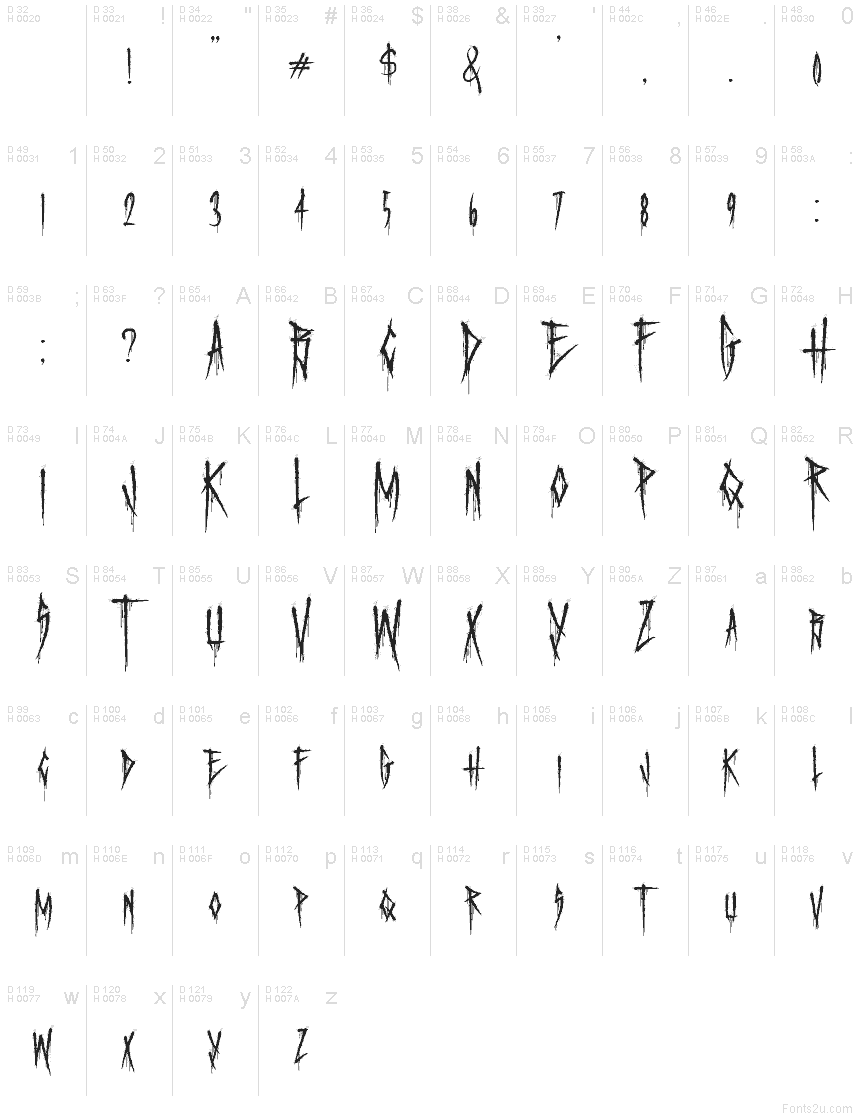
Terror From Midnight
Terror From Midnight font by Lettersiro Studio is a free scary display font. Built for shock value, its jagged, splintered strokes jab downward like dripping claws, with a gritty, splashed texture that feels freshly scratched into concrete. The uneven rhythm keeps eyes on edge, delivering that visceral “something’s wrong” thrum that horror titles need without getting unreadable.
Using Terror From Midnight, your headline instantly screams horror: movie posters, haunted house flyers, Halloween merch, metal album covers, thriller book titles, and game splash screens all benefit from its razor-edged drama. This free font shines at large sizes with a little extra tracking. Pair it with a plain, narrow sans for body copy so the chaos up top stays in control.